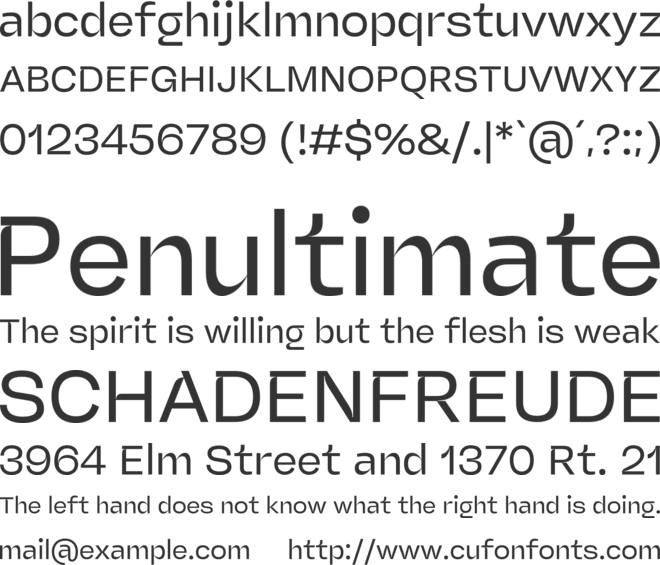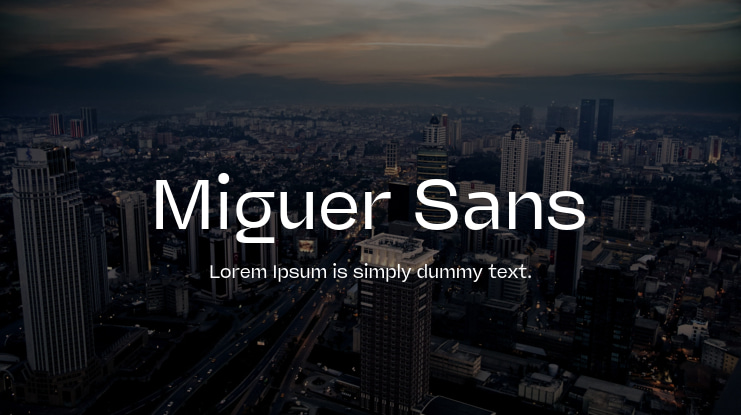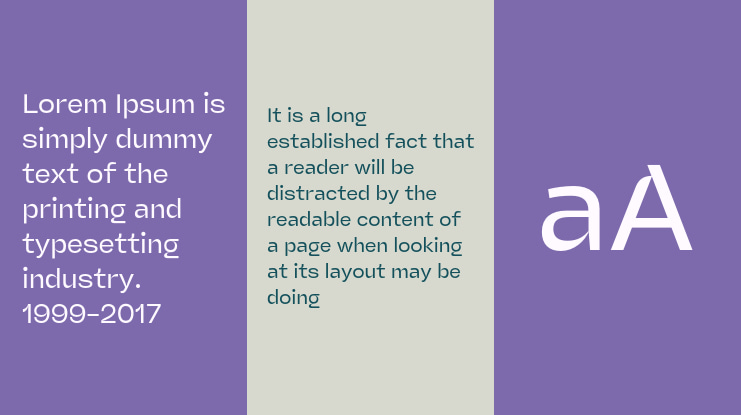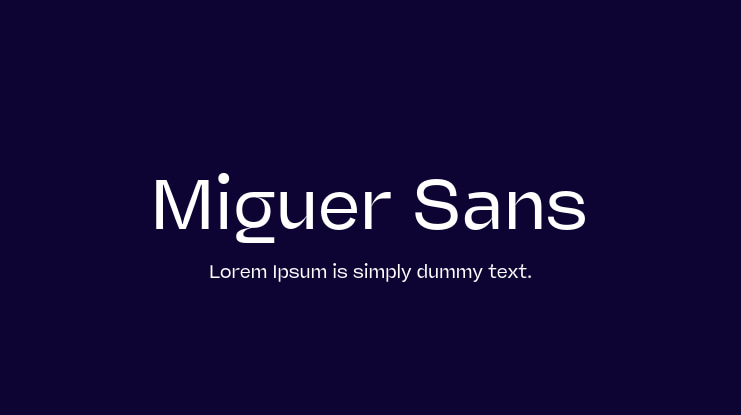
Laire Banyu Sandi Pawenang
Miguer Sans is a high-contrast, modern sans-serif typeface that
combines flexibility with a distinctive aesthetic. Featuring 18 styles
ranging from Thin to Black, including italics, this font offers a broad
spectrum of design possibilities.